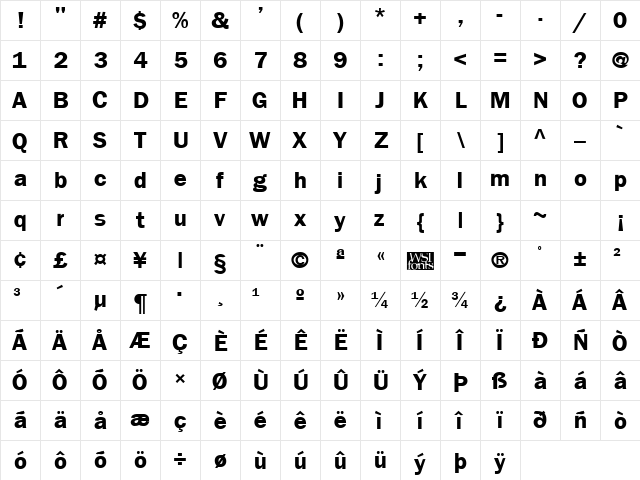
Franzfurt is a composed and adaptable typeface that performs quietly and consistently across a wide range of design contexts. Its bold stroke weight gives it real presence on the page.